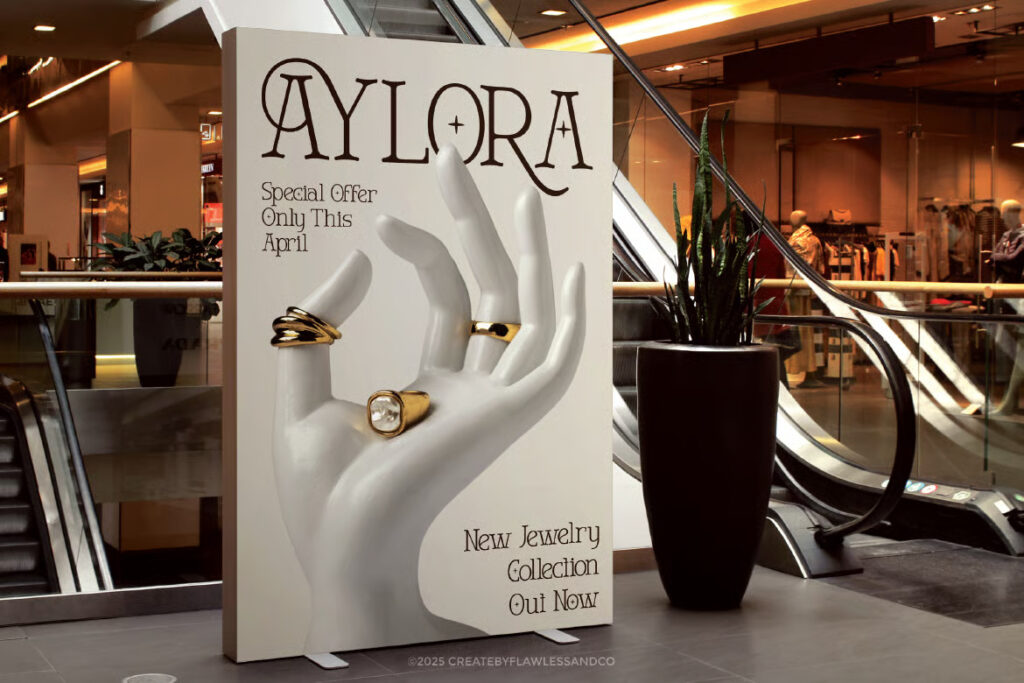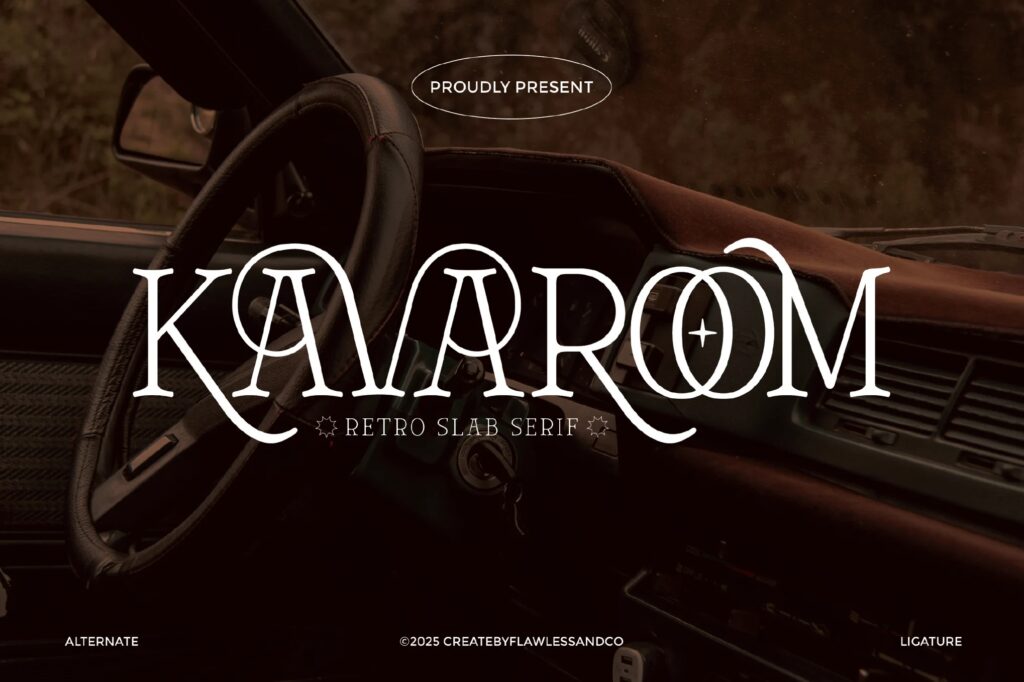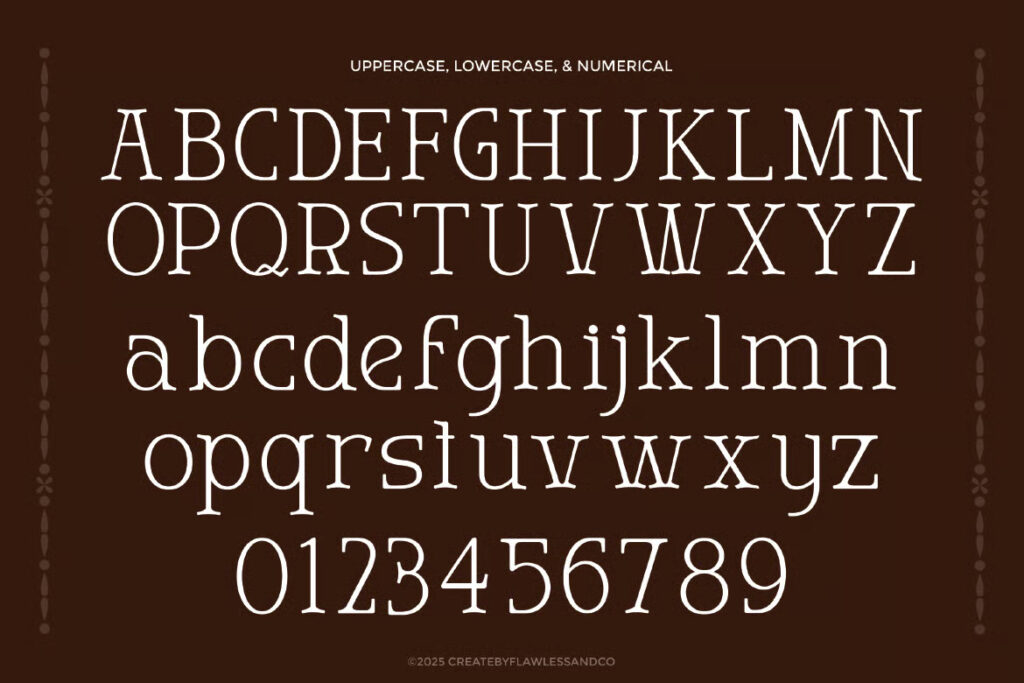
Kavaroom Serif Font
Kavaroom is a retro slab serif font that masterfully blends nostalgic elegance with a bold, contemporary edge. Featuring distinctive letterforms, graceful curved details, and thoughtfully crafted ligatures, it delivers a look that is both timeless and fresh. Ideal for designers seeking a strong visual identity infused with artistic flair, Kavaroom shines in vintage branding, editorial layouts, packaging, and signage. Its wide letter spacing, ornamental alternates, and subtle decorative accents give it a unique personality that elevates any design. Whether used for logos, headlines, or promotional materials, Kavaroom adds style, structure, and unmistakable character to your typography.